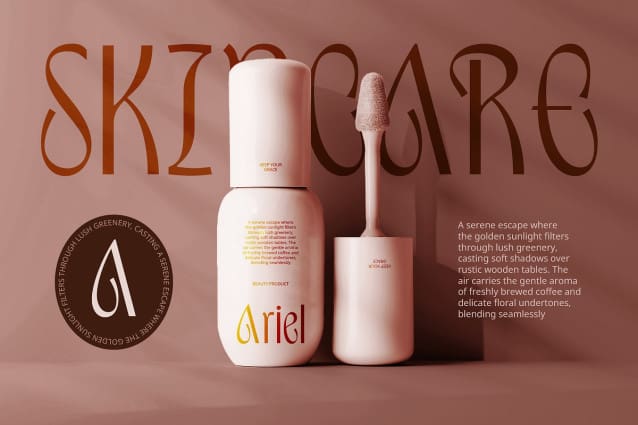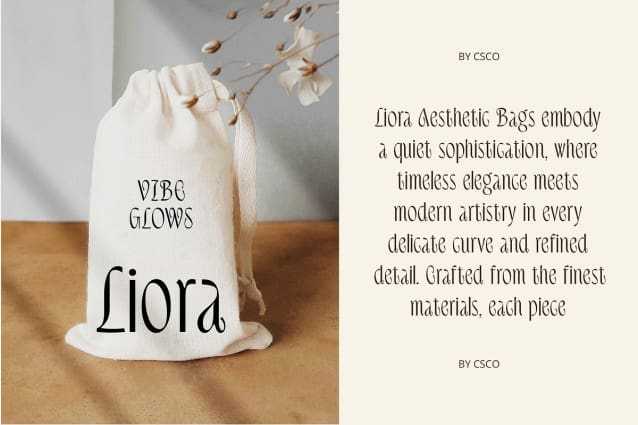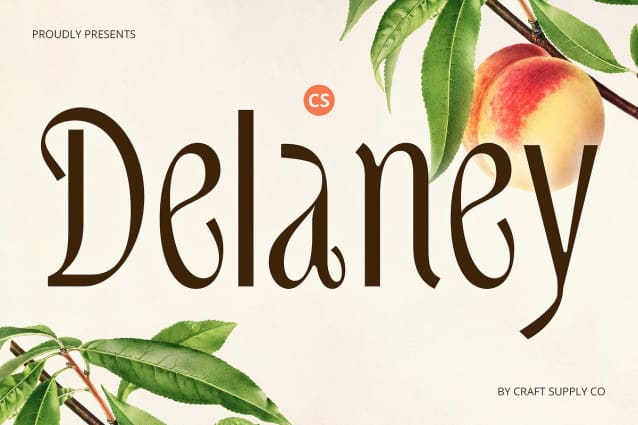
CS Delaney Font
CS Delaney Font is a modern sans-serif font that stands out with its sleek, minimalist form. The clean lines and refined proportions bring a sense of calm and precision, allowing it to shine in both professional and creative contexts. The subtle elegance of this font makes it perfect for designs that demand a modern, high-end look, ensuring a refined appearance that will elevate any project.
Elegant and Captivating Impression With its sophisticated simplicity, CS Delaney conveys an air of quiet elegance. Its well-balanced structure creates a harmonious and captivating design that can enhance any project, from luxury branding to contemporary editorial layouts. The font’s restrained yet refined aesthetic gives it a timeless appeal, making it ideal for brands and designs that want to communicate grace and luxury.
Versatile for High-End Applications Whether used in branding, editorial design, or high-end product packaging, CS Delaney offers unparalleled versatility. Its minimalist yet elegant nature ensures it integrates seamlessly into a wide range of design applications, adding a touch of refinement and modernity to corporate identities, digital platforms, and more. The result is a polished and sophisticated visual presence that draws attention without overpowering the message.